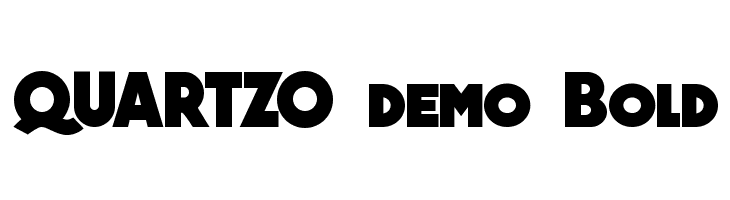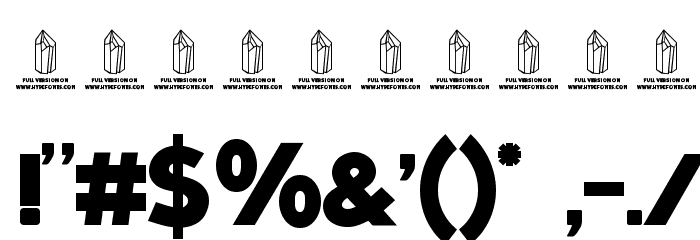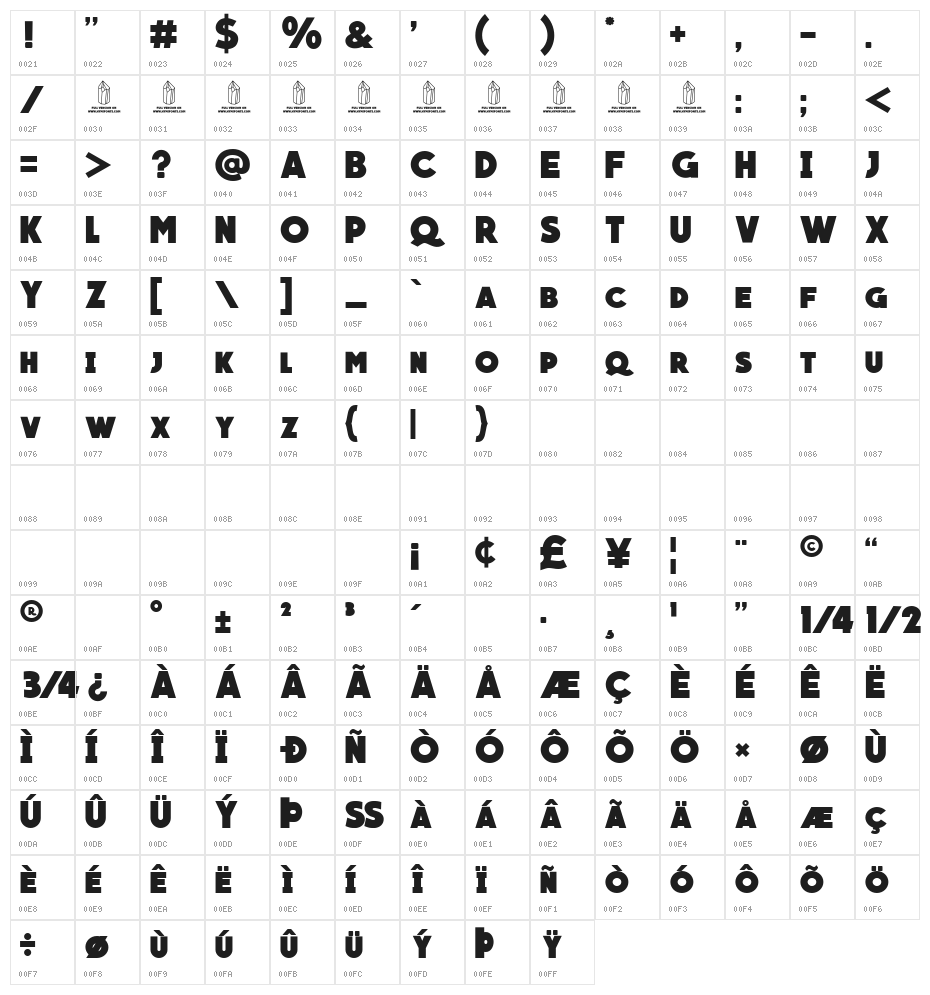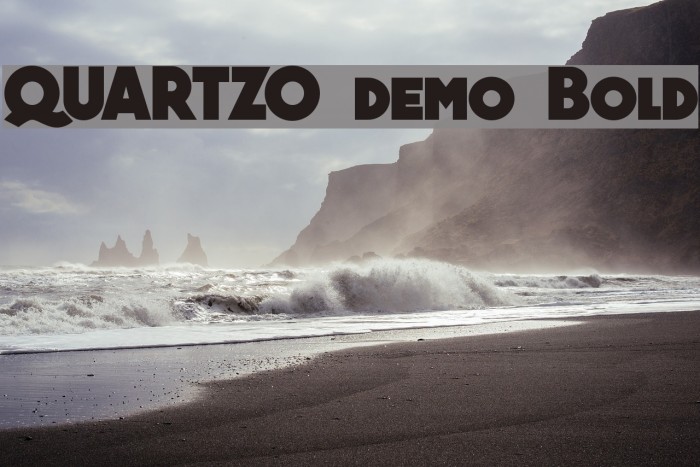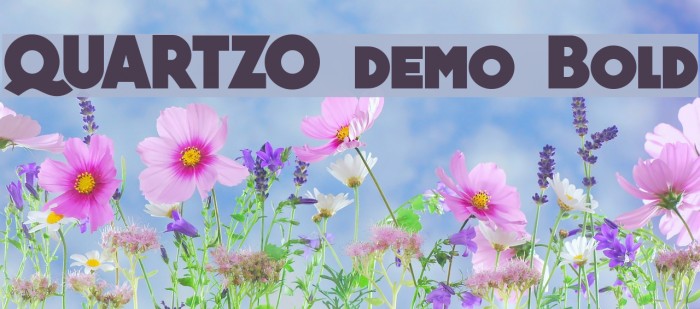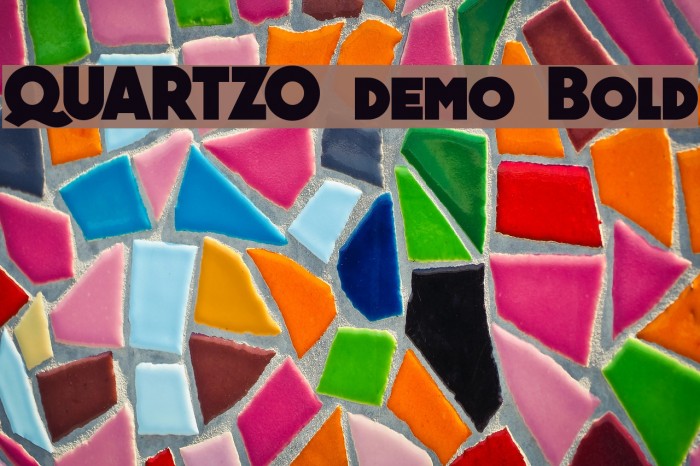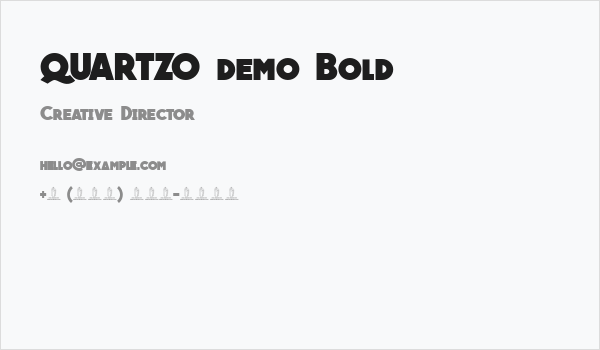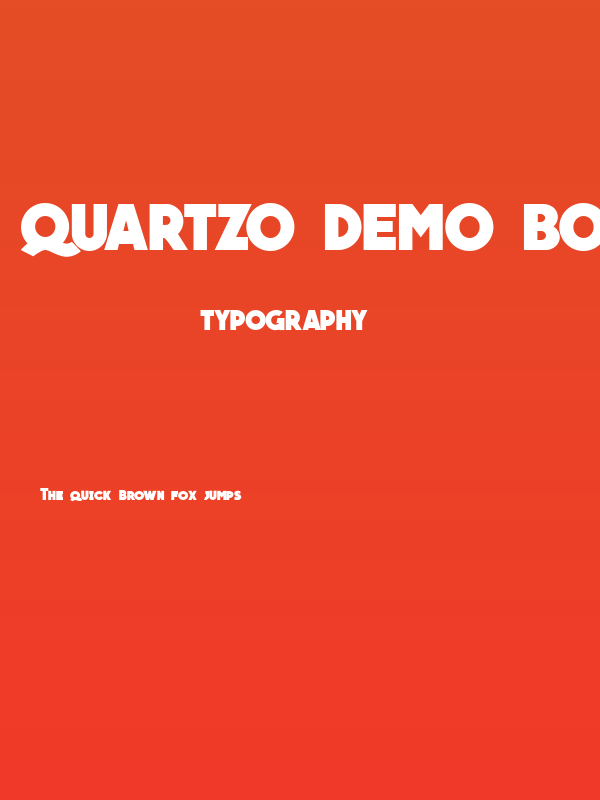
QUARTZO demo Bold Font
QUARTZO demo Bold Description
This font features a bold and impactful design, characterized by thick, uniform strokes and a strong geometric structure. The uppercase letters are particularly striking, with a blocky appearance that commands attention. The font maintains a consistent weight throughout, ensuring readability and a cohesive look. The characters are tightly spaced, contributing to its compact and powerful aesthetic. This style is well-suited for making a statement, with its high contrast and modern flair. The special characters are equally bold, integrating seamlessly with the overall design.
| Proposed Projects | Ideal for headlines, posters, branding, and any project requiring a strong visual impact. |